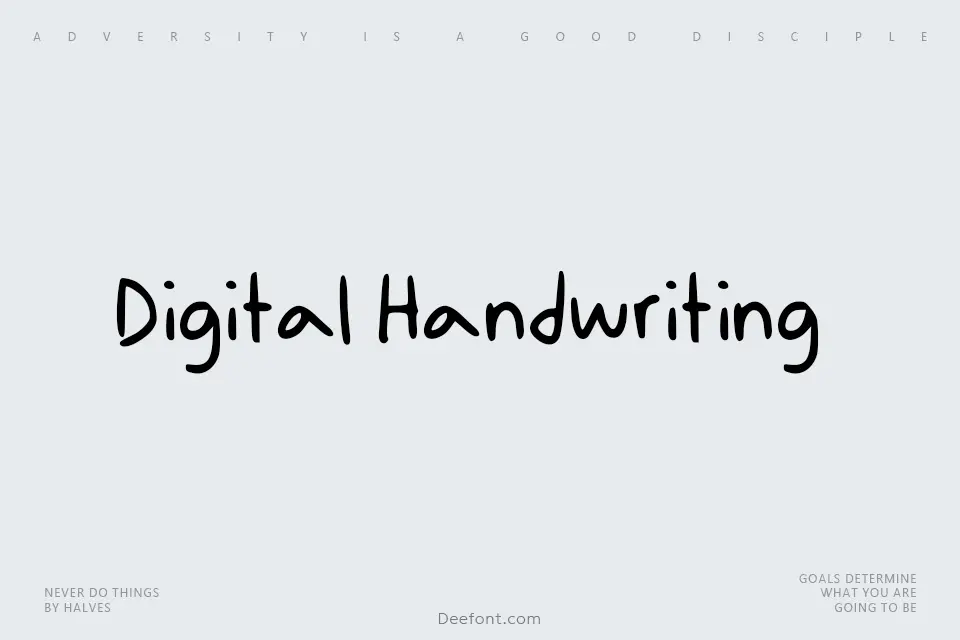
Digital Handwriting Font
Digital Handwriting is a charming casual script typeface that captures the organic beauty of authentic pen strokes and natural handwriting curves. Featuring smooth, flowing letterforms with genuine character variations, this font excels in creative contexts such as poster designs, greeting cards, display headlines, and casual branding projects. The relaxed aesthetic makes it perfect for designs targeting personal projects, educational materials, and youth-oriented communications where warmth and approachability matter most. Its balanced readability ensures functionality while maintaining artistic integrity.